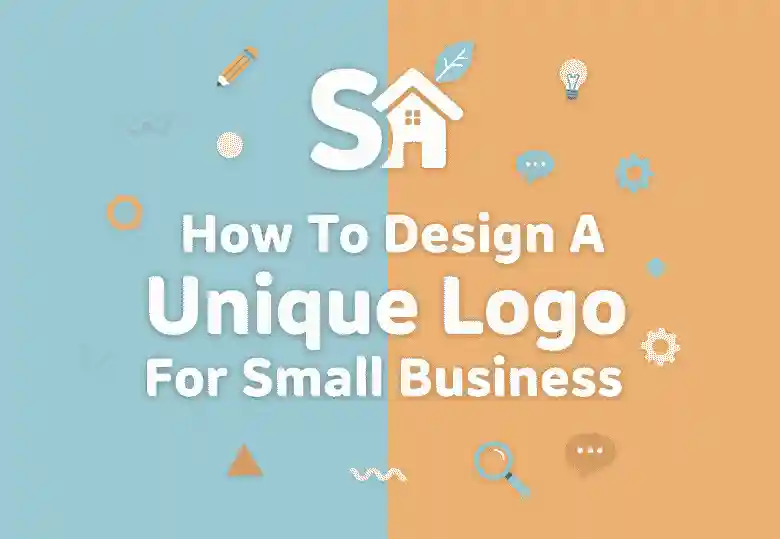
How To Design A Unique Logo For Small Business
A logo is more than just a graphic—it’s the face of your brand. For small businesses, a unique logo helps build trust, attract attention, and differentiate your brand from competitors. Unlike big corporations with large marketing budgets, small businesses rely heavily on first impressions. A thoughtfully designed logo can communicate professionalism, creativity, and authenticity in just one glance.
2. Key Principles of Effective Logo Design
To create a strong and memorable logo, consider these principles:
• Simplicity: A simple design ensures your logo is recognizable and versatile.
• Relevance: Your logo should reflect your business values and industry.
• Memorability: A unique design helps your audience remember your brand.
• Scalability: Logos must look good on everything from business cards to billboards.
• Timelessness: Avoid overly trendy designs that may look outdated in a few years.
Typography plays a crucial role in logo design. Fonts carry emotion and personality, shaping how customers perceive your brand. For small businesses, the right font can make your logo look luxurious, playful, modern, or professional.
Some tips when choosing fonts:
• Use serif fonts for elegance and professionalism.
• Use sans serif fonts for a clean, modern feel.
• Use script fonts for creativity and personal touch.
• Limit to one or two fonts for balance and clarity.
4. Color Psychology in Logo Design
Color is another powerful element of logo design. Each color conveys specific emotions:
• Blue: Trust, professionalism (banks, tech companies).
• Green: Growth, sustainability (eco-friendly brands).
• Red: Passion, energy (food & beverage brands).
• Black/Gold: Luxury, sophistication (premium services).
Your font and color combination should align with your brand message. For example, a bakery might pair a script font with warm pastel colors, while a law firm might choose a serif font with navy blue.
Here’s a practical roadmap to designing a logo for your small business:
1. Research your market – Identify competitors’ logos to avoid similarities.
2. Define your brand personality – Decide if you want to be modern, playful, or professional.
3. Sketch initial ideas – Combine symbols, typography, and colors.
4. Choose your fonts & colors – Select typography and palettes that reflect your values.
5. Use logo design software – Tools like Canva, Adobe Illustrator, or Looka make the process easier.
6. Refine and simplify – Remove unnecessary details.
7. Test in different formats – Ensure your logo works on social media, packaging, and signage.
6. Common Mistakes to Avoid
Many small businesses struggle with logo design because of avoidable mistakes. Stay clear of:
• Using too many fonts.
• Overcomplicating the design.
• Copying competitors’ logos.
• Ignoring scalability (looks blurry in small sizes).
• Choosing colors that clash or don’t represent your brand identity.
These fonts not only help your logo stand out but also give your business a professional and memorable identity.
8. Conclusion
Designing a unique logo for your small business is not just about looks—it’s about telling your brand’s story. By combining typography, color psychology, and design principles, you can create a logo that leaves a lasting impression.